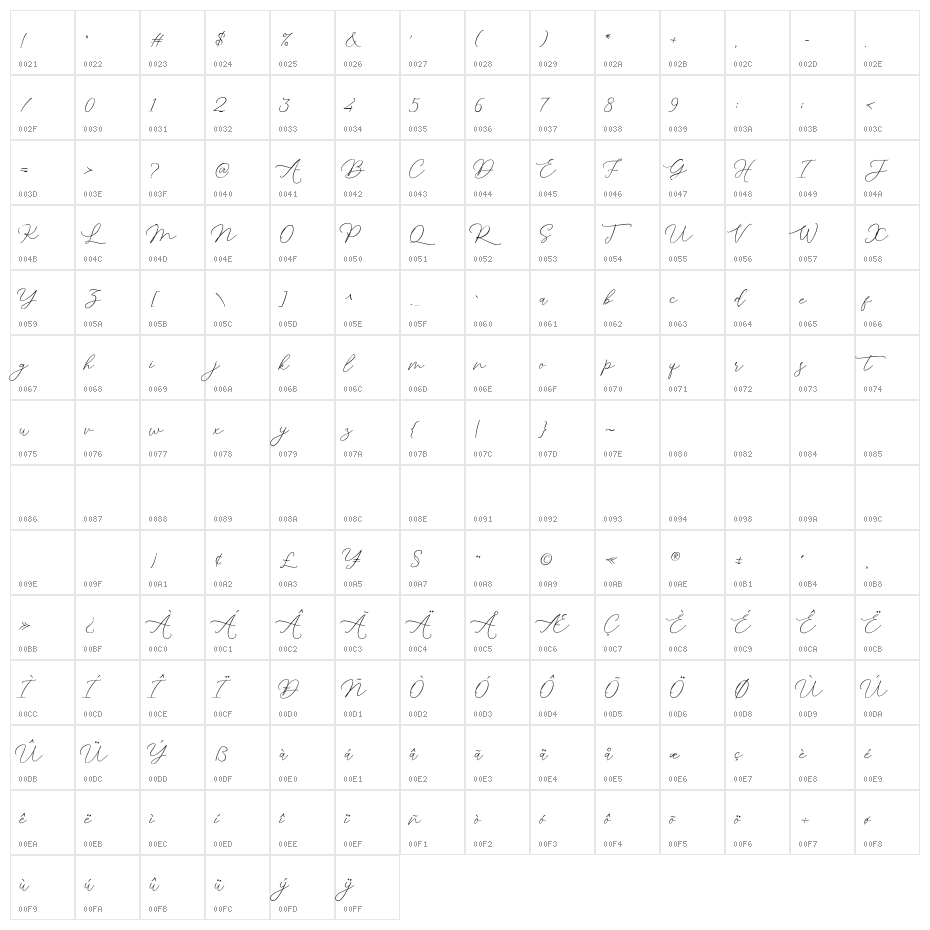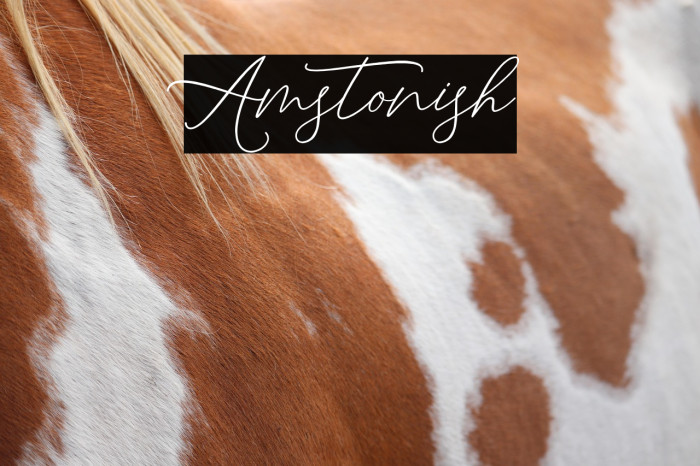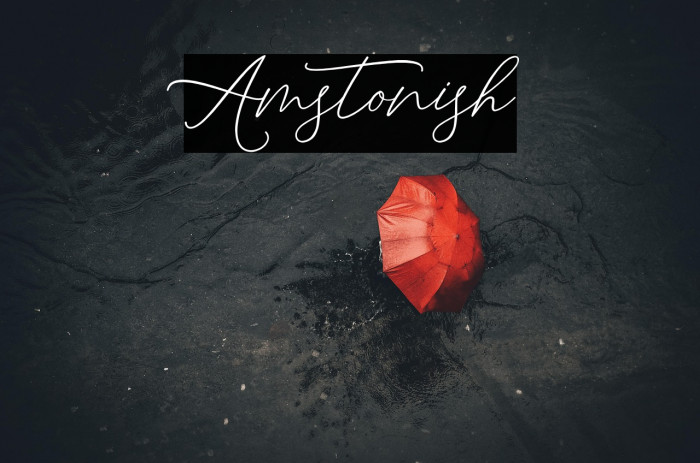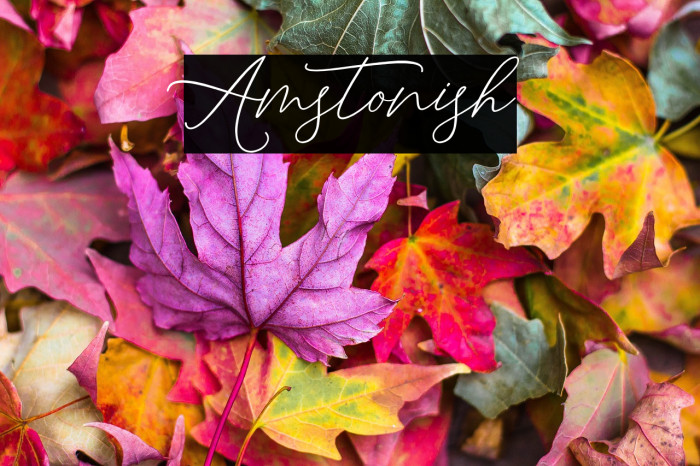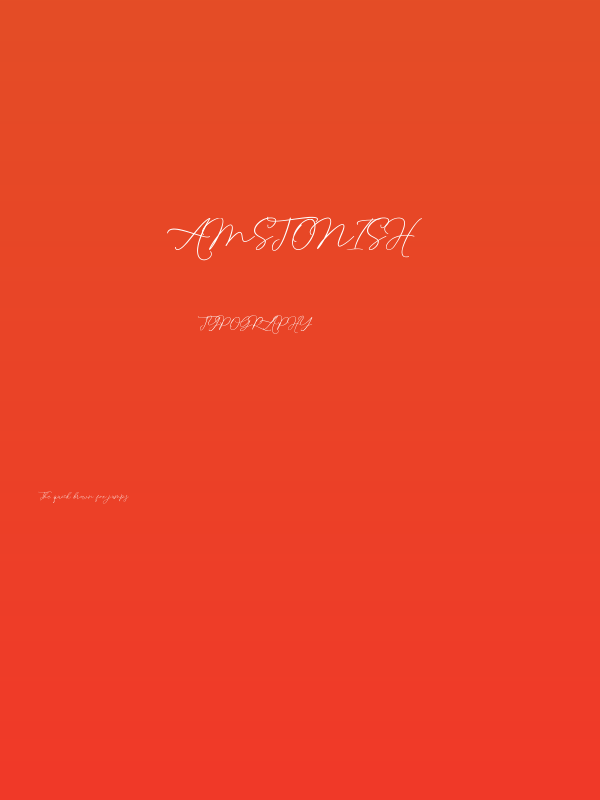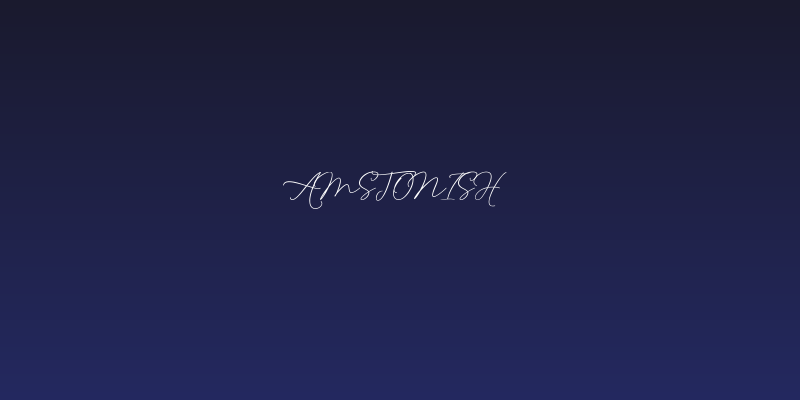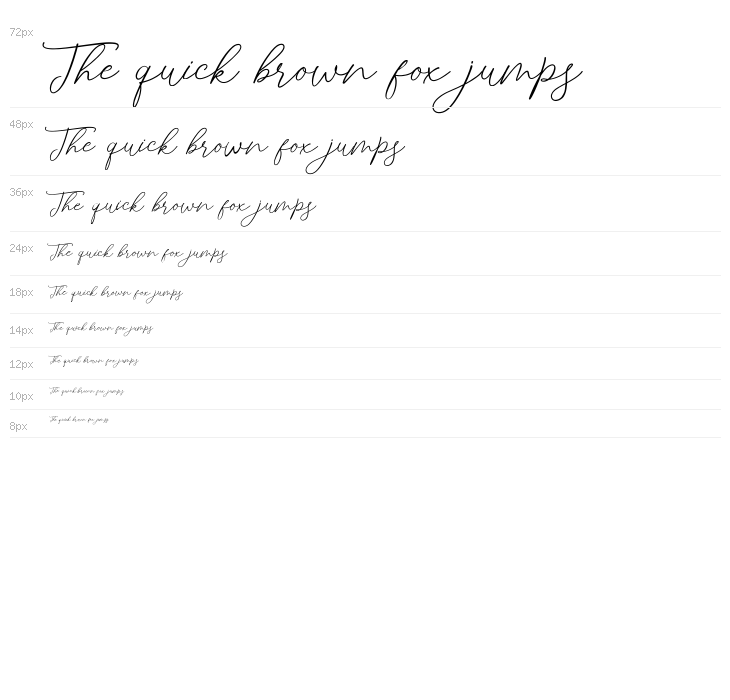
Amstonish Font
Amstonish Description
This elegant script font features a flowing, cursive style with delicate, interconnected letters that exude sophistication and grace. The uppercase letters are slightly more ornate, with sweeping lines and flourishes, while the lowercase letters maintain a consistent, fluid motion. The numerals and special characters are crafted with the same attention to detail, ensuring a cohesive look across all elements. The font's thin strokes and gentle curves create a sense of lightness and elegance, making it ideal for formal invitations, branding, and decorative purposes.
| Overall Style | Elegant, Decorative |
| Use Case | Headlines, Invitations, Decorative text |
| Proposed Projects | Ideal for wedding invitations, elegant branding, greeting cards, and decorative projects. |